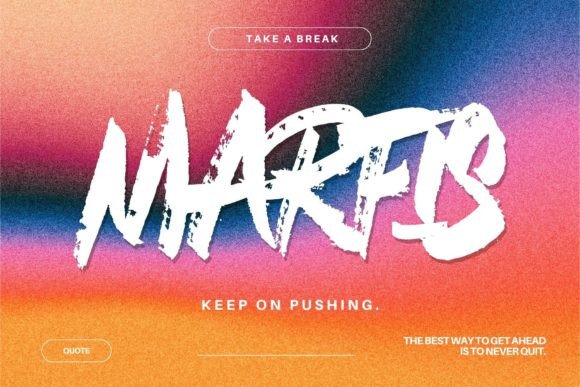
Introducing Marfis Font, the ultimate font for a letter! Created by the talented maghrib, this hand-painted typeface is specifically designed to bring the art of stunning custom hand-lettering to your fingertips.
With Marfis Font, you can effortlessly add a touch of elegance and creativity to any project. Whether you're working on quotes, posters, logos, print ads, digital ads, promotional products, or video bumpers, this versatile display font will take your designs to new heights.
What sets Marfis Font apart is its unique and captivating style. Each letter is meticulously crafted, offering a hand-painted aesthetic that exudes authenticity and charm. The strokes flow seamlessly, creating a visually pleasing rhythm that instantly captures attention.
Imagine the impact of your message when it's beautifully presented in Marfis Font. Its graceful curves and subtle imperfections add a human touch, evoking emotions and establishing a genuine connection with your audience. Stand out from the crowd and let your words make a lasting impression.
Marfis Font also offers a wide range of possibilities. Its versatility allows you to explore various design options and experiment with different layouts. Whether you want to convey a bold and impactful message or a delicate and sophisticated tone, this font adapts effortlessly to your creative vision.
But Marfis Font isn't just about aesthetics; it's also about functionality. With its clear and legible letterforms, your text remains easily readable across different mediums and sizes. Say goodbye to blurry or distorted letters – Marfis Font ensures that your message is always delivered with clarity and precision.
Experience the power of Marfis Font and witness the transformative effect it has on your projects. Let your words speak volumes with this enchanting display font, and watch as your designs come to life with elegance, personality, and impact.